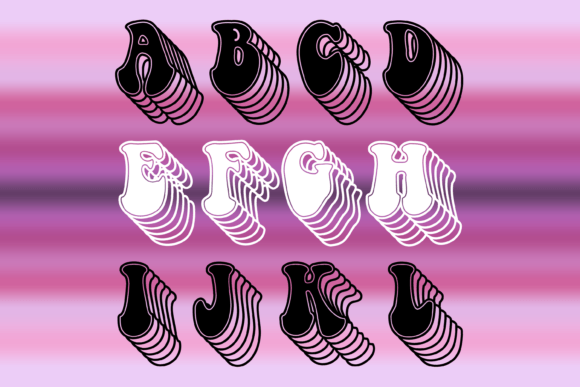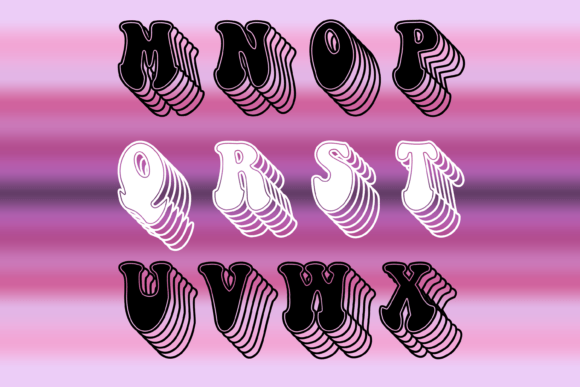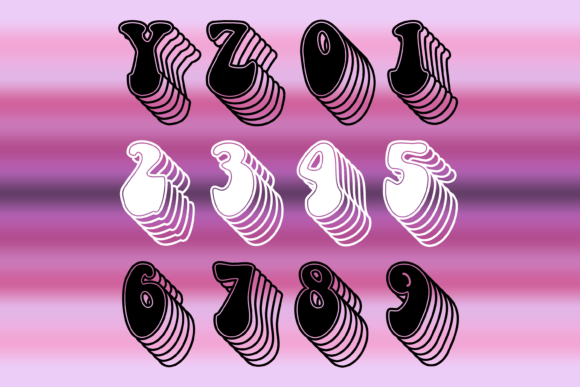
Unleash Your Creativity with the Boogie Woogie Font
Boogie Woogie is an incredibly cool font. Whether you use it for custom designs, DIY crafts, or just any creation that requires a creative touch, this font will be an amazing choice. Its unique and playful style is sure to capture the attention of your audience and add a fun twist to your projects.
What is Boogie Woogie Font?
The Boogie Woogie font is a typeface that exudes energy and playfulness. Its bold and curly lines give it a distinctive look that is reminiscent of the classic boogie woogie music style. This font is perfect for designers and crafters who want to add a touch of whimsy and fun to their creations.
Characteristics of Boogie Woogie Font
The Boogie Woogie font has several characteristics that make it stand out from other fonts. Some of its key features include:
- Bold and curly lines: The font’s bold and curly lines give it a dynamic and energetic look.
- Playful style: The font’s playful style makes it perfect for projects that require a fun and creative touch.
- Highly legible: Despite its bold and curly lines, the Boogie Woogie font is highly legible, making it easy to read and understand.
Uses of Boogie Woogie Font
The Boogie Woogie font can be used in a variety of projects, including:
- Custom designs: The font’s unique style makes it perfect for custom designs, such as logos, posters, and brochures.
- DIY crafts: The font’s playful style makes it ideal for DIY crafts, such as handmade cards, gift tags, and scrapbooking.
- Digital creations: The font can also be used in digital creations, such as social media graphics, blog posts, and website headers.
Benefits of Using Boogie Woogie Font
Using the Boogie Woogie font in your projects has several benefits, including:
- Unique style: The font’s unique style will help your projects stand out from the crowd.
- Easy to use: The font is highly legible and easy to use, making it perfect for designers and crafters of all skill levels.
- Versatile: The font can be used in a variety of projects, from custom designs to DIY crafts.
Tips for Using Boogie Woogie Font
Here are some tips for using the Boogie Woogie font in your projects:
- Use it sparingly: While the font is fun and playful, it can be overwhelming if used too much. Use it sparingly to add a touch of whimsy to your projects.
- Pair it with other fonts: The Boogie Woogie font can be paired with other fonts to create a unique and interesting look.
- Experiment with colors: The font looks great in a variety of colors, so don’t be afraid to experiment and find the perfect color for your project.
In conclusion, the Boogie Woogie font is a fun and playful typeface that is perfect for designers and crafters who want to add a creative touch to their projects. Its unique style, bold and curly lines, and high legibility make it a great choice for a variety of projects, from custom designs to DIY crafts. With its versatility and ease of use, the Boogie Woogie font is sure to become a favorite among designers and crafters.
Get Creative with Boogie Woogie Font
So why not give the Boogie Woogie font a try? With its unique style and versatility, it’s sure to add a fun and creative touch to your projects. Whether you’re a designer or crafter, the Boogie Woogie font is a great choice for anyone looking to unleash their creativity and add a little whimsy to their work.